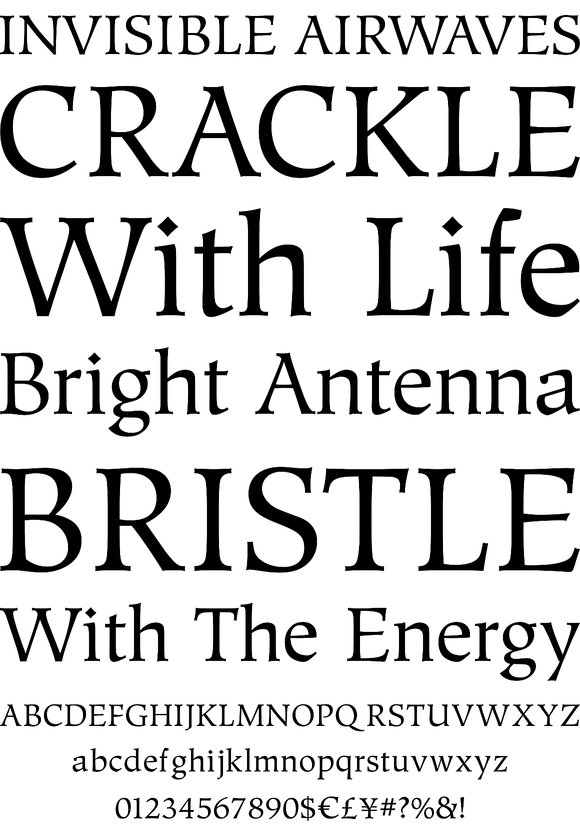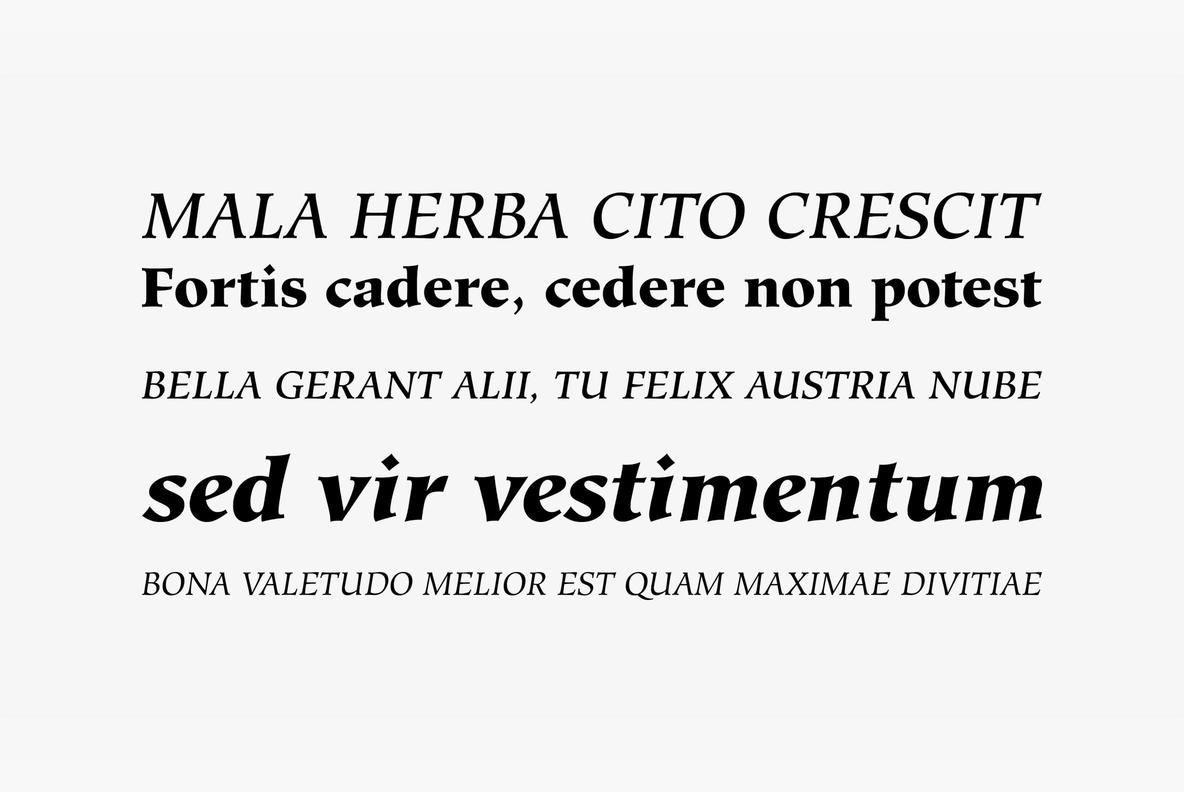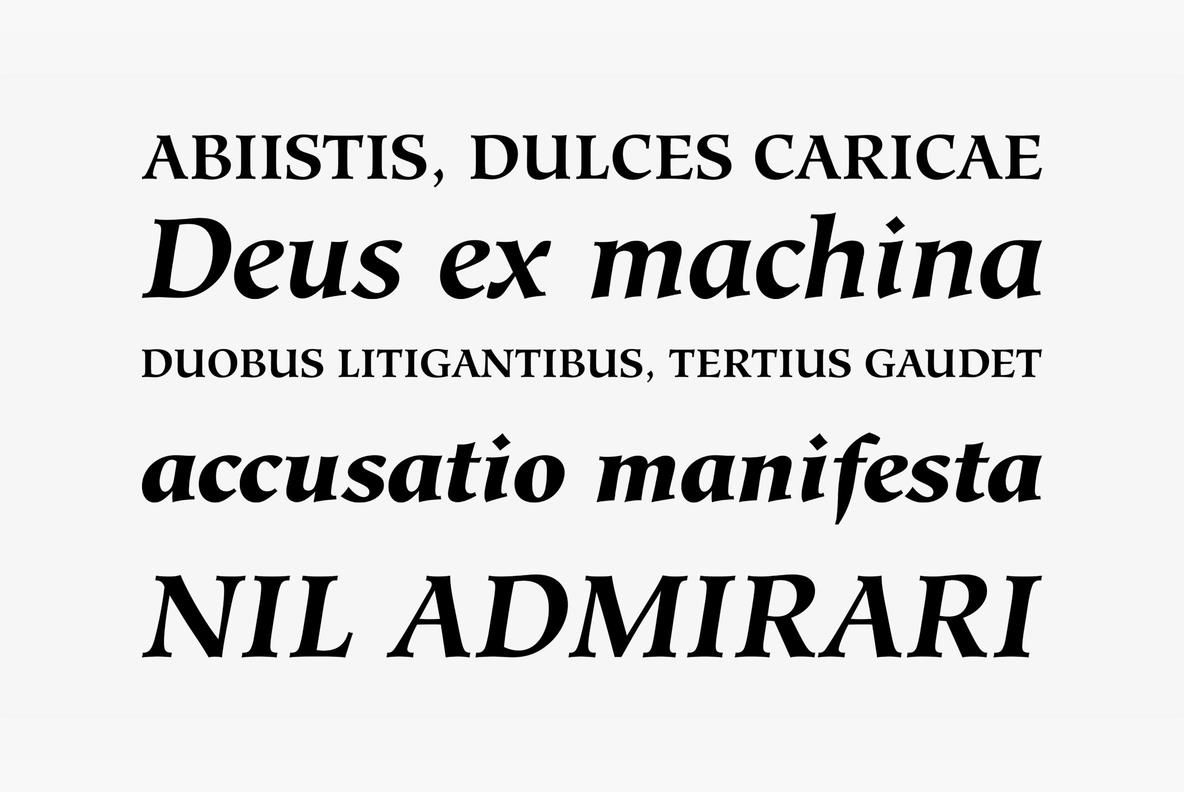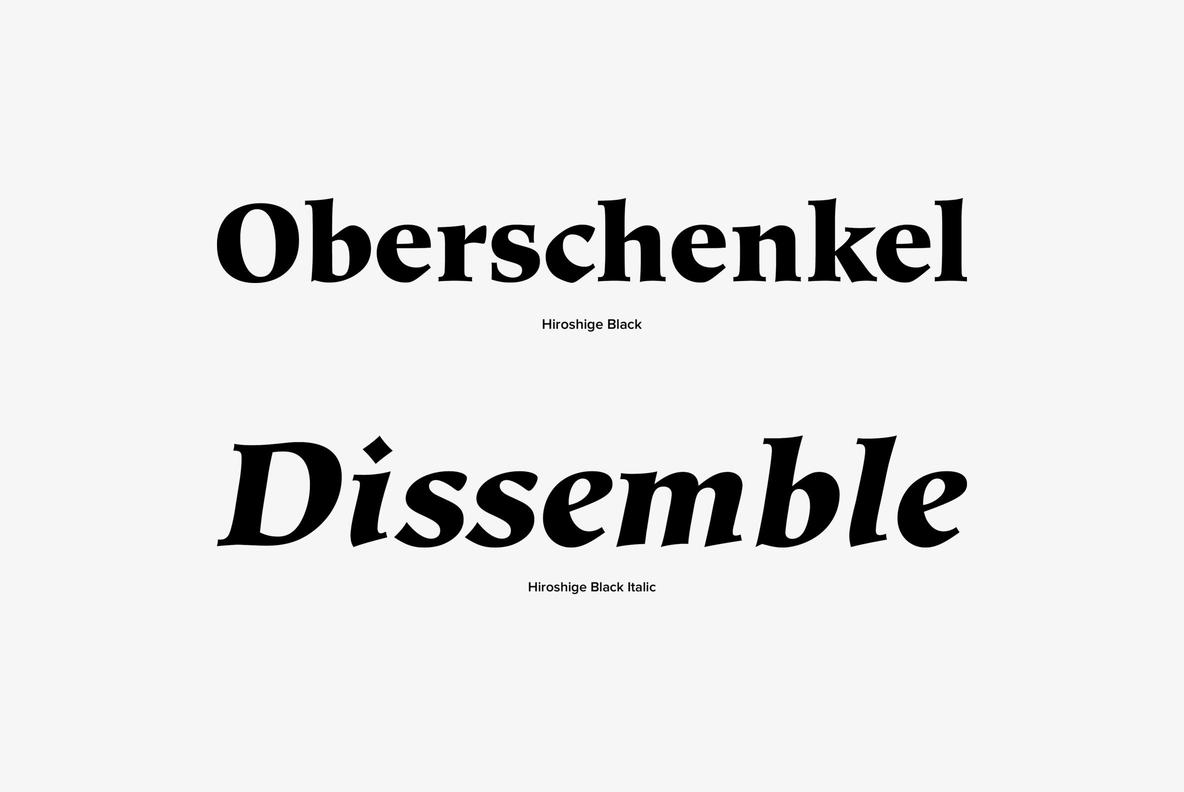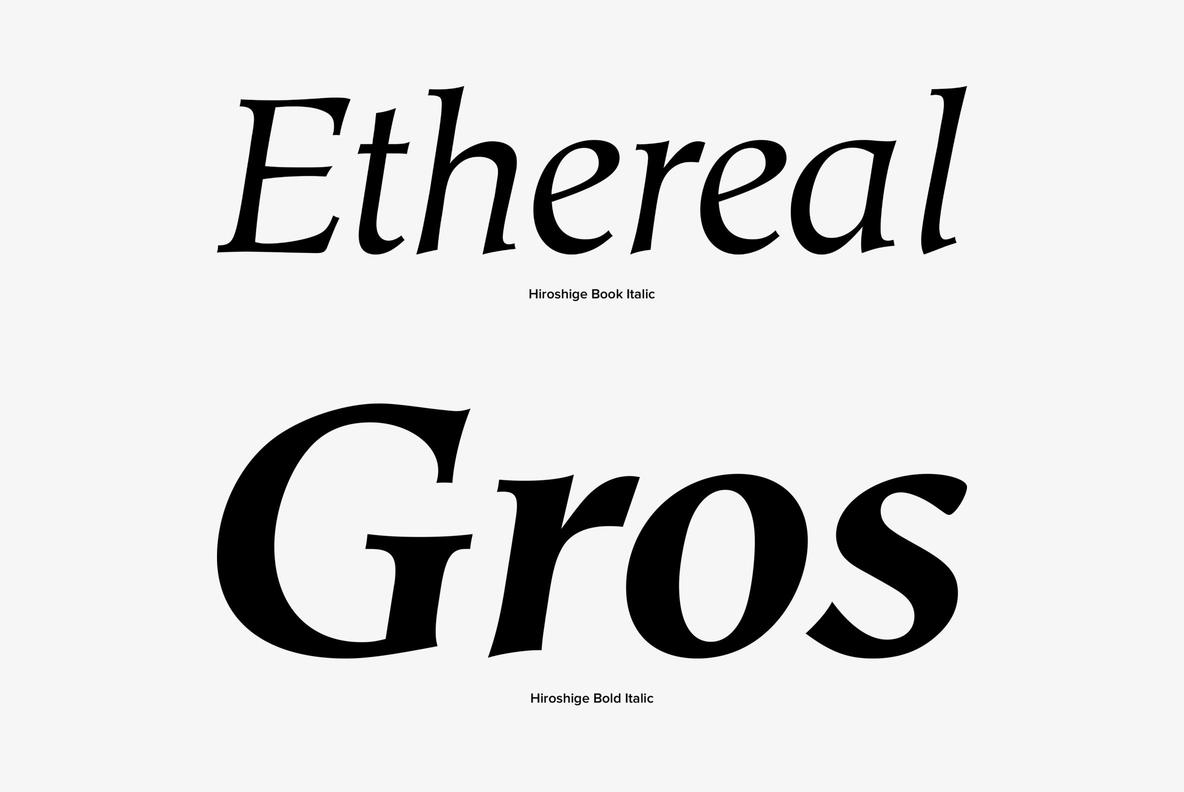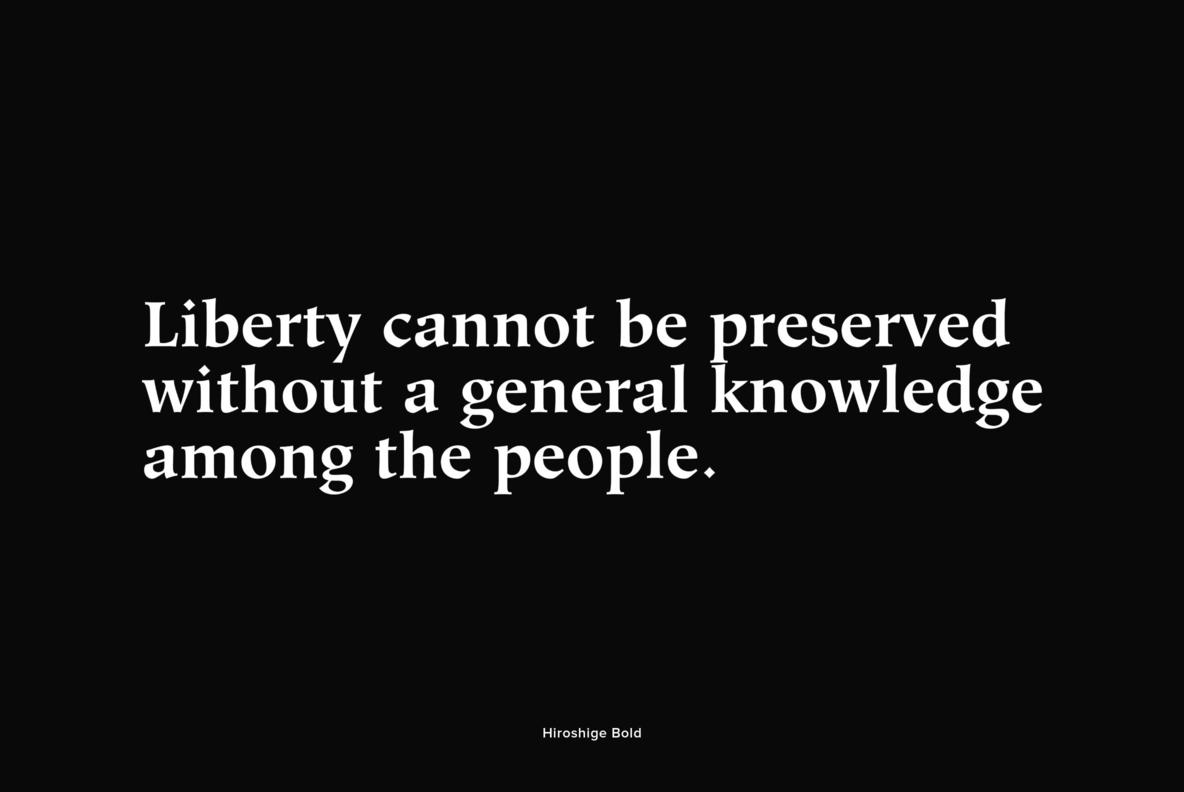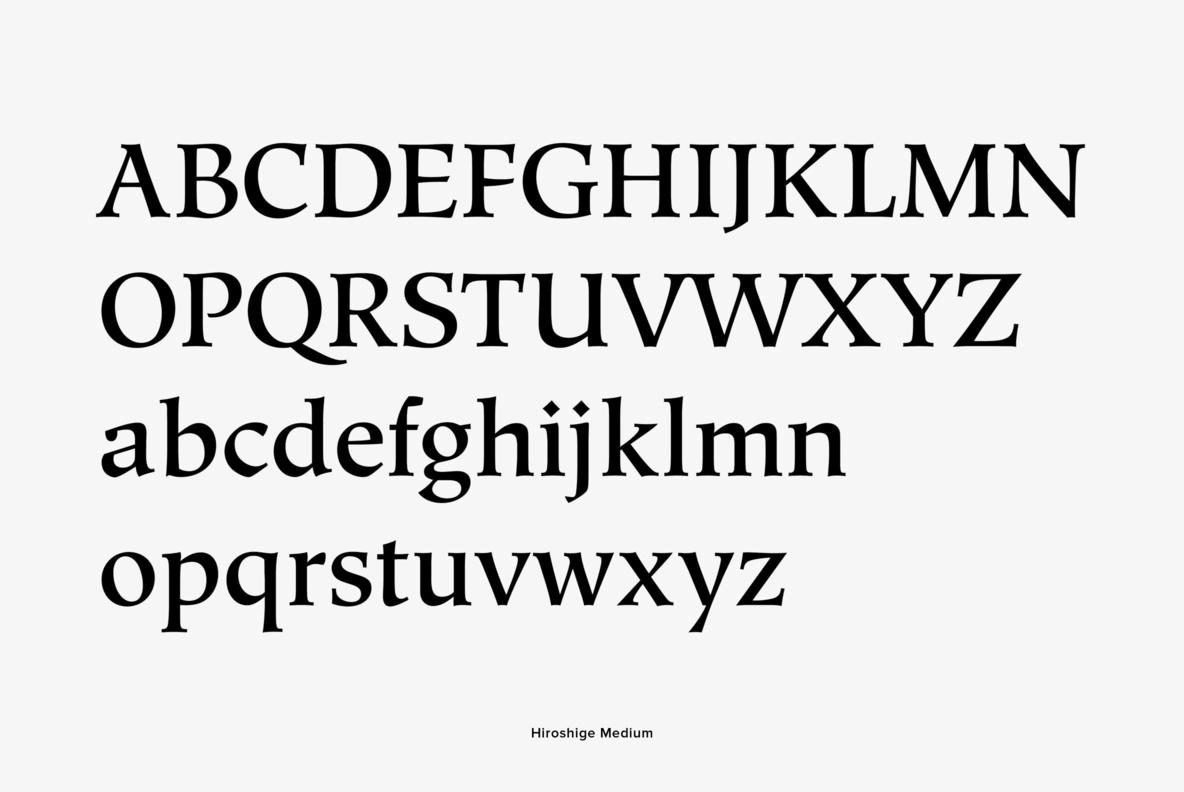
A vintage and classic serif designed by Cynthia Hollandsworth, Hiroshige brings elegance and class to any project. Works great in both content and headline usage.